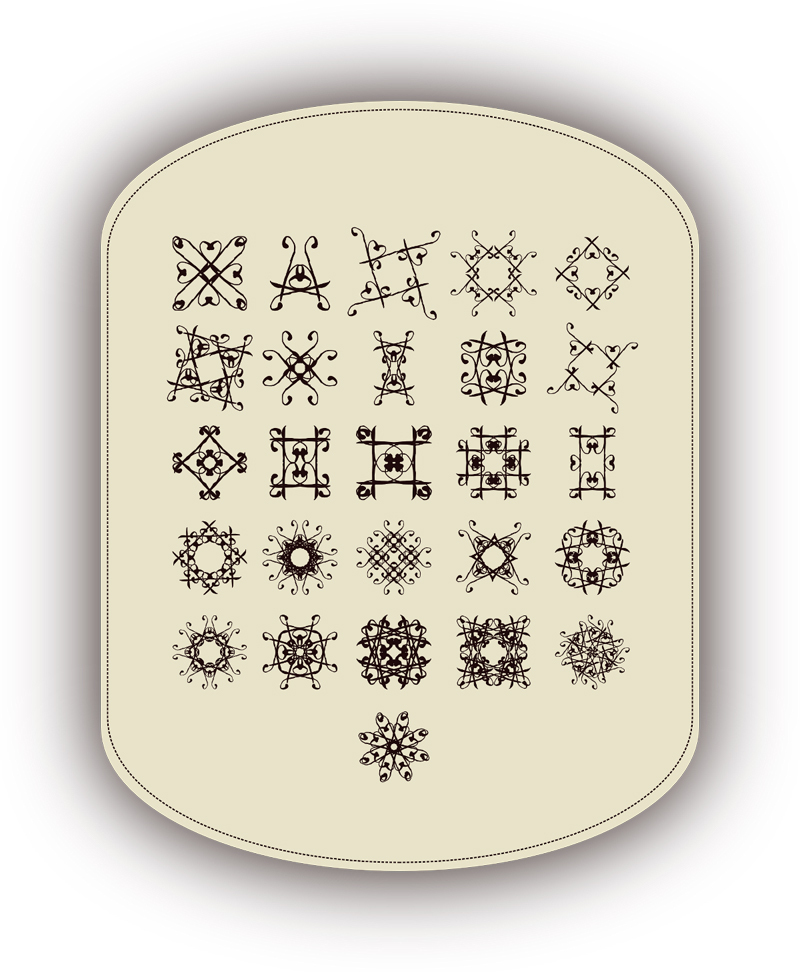
SVGfont 1
SVGfont 1, designed by AgaSilva, is a captivating dingbat font that offers a treasure trove of intricate designs for a variety of creative applications. With its ornate and symmetrical characters, this font exudes a sense of elegance and complexity that can enhance the visual intrigue of any project. Each character in SVGfont 1 is crafted with meticulous attention to detail, resulting in a harmonious balance between artistry and readability.
This font's aesthetic appeal lies in its ability to transform simple textual elements into decorative art pieces. The stylized nature of SVGfont 1 makes it particularly suitable for projects that require an artistic touch, such as wedding invitations, logo design, or embellishing page layouts with sophisticated flair.
Embracing both classical charm and modern versatility, SVGfont 1 promises to be an essential asset for designers seeking to infuse their work with visual poetry and distinctive style. Its suitability across various mediums ensures that this typeface will inspire creativity and elevate the caliber of design endeavors it accompanies.
fantasy dingbats, vol.1 -(to be used in layouts instead of a photoshop brush)